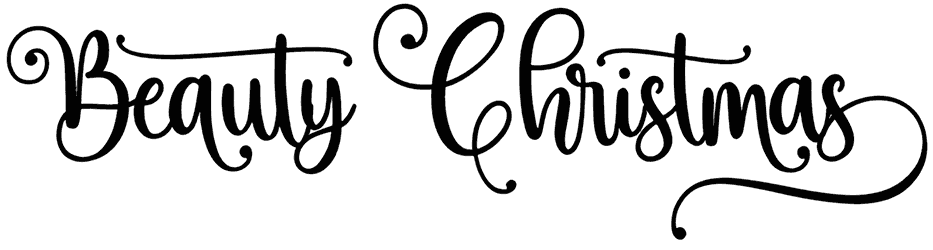
Beauty Christmas Font
Beauty Christmas is a script font with lovely, connected letters. This is perfect for use in Christmas-themed endeavors like advertisements, publications, toy packaging, garments, and so on.
This flowing calligraphy font can be a savior for your typography by pulling it out of the monotony and making it pleasing to the eye of anyone who sees it. The fonts at the RB are a great place to start if you’re looking to add some levity to your next project.